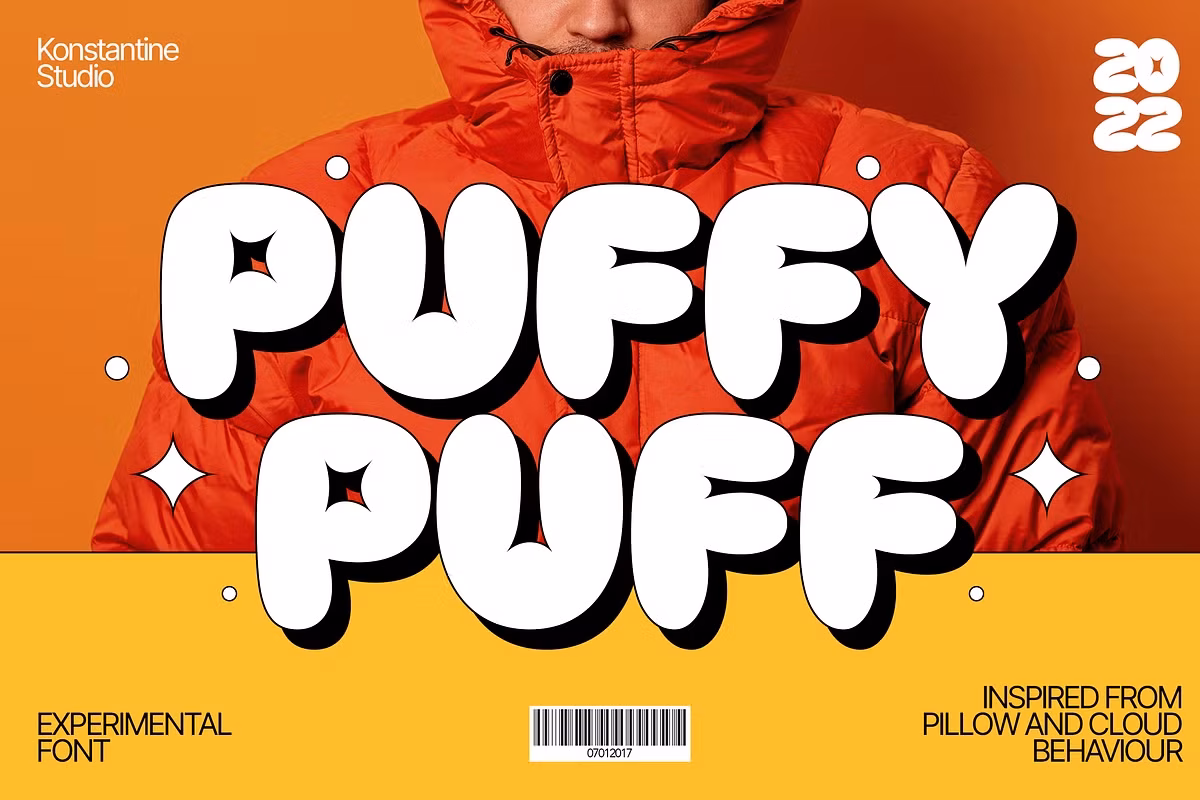
Puffypuff – Bubble Pop Display Font is an experimental typeface inspired by the soft, rounded forms of pillows and clouds. Designed by Konstantine Studio, this font brings a whimsical and playful aesthetic to your creative projects.
Design Inspiration: The font's characters mimic the puffy and airy qualities of clouds and pillows, resulting in a bubbly and inviting appearance.
Versatile Usage: Puffypuff is well-suited for a variety of design applications, including logos, branding, posters, music projects, album covers, event promotions, Y2K concepts, graffiti designs, brutalism art, modern aesthetics, fashion, apparel, and merchandise.
Styling Tips: -
Adjust the stroke weight to achieve bold, comical, or vintage vibes.
Create a shadow effect by duplicating text layers, setting the back layer to black, and slightly offsetting it downward.
Combine Puffypuff with other fonts within a single word to craft experimental and visually engaging designs.
Incorporating Puffypuff into your design toolkit can add a unique and playful touch to your projects, capturing attention with its distinctive bubble-like letterforms.